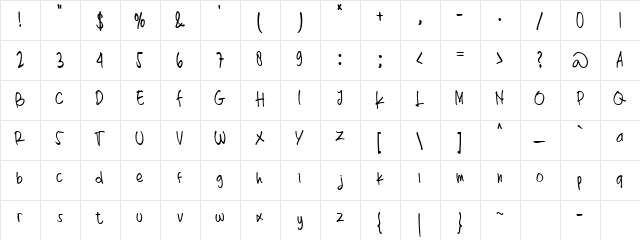
THOERTIEN Regular
| Designer | Afif Hidayat Alhabsi |
THOERTIEN takes a measured approach to typography — its balanced proportions and neutral character make it a reliable workhorse for both digital and print work.